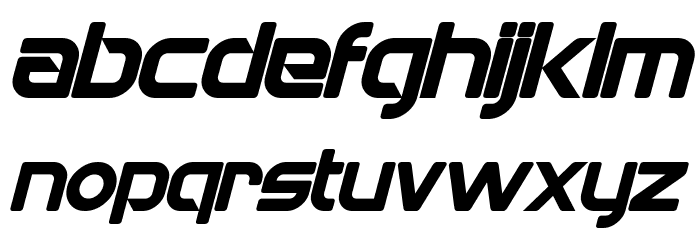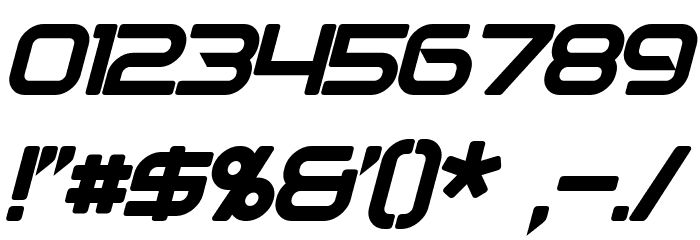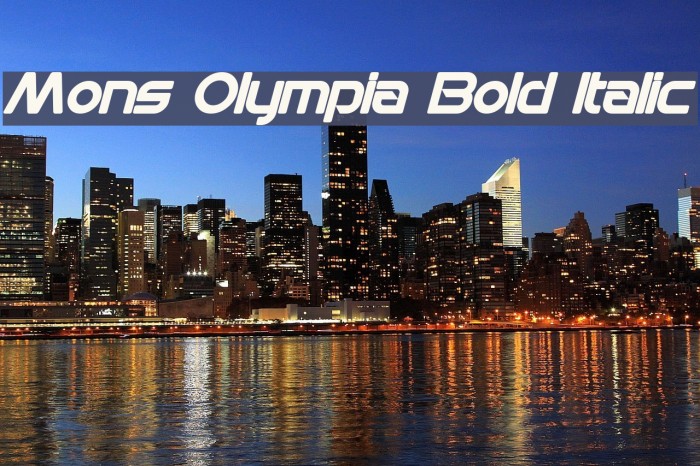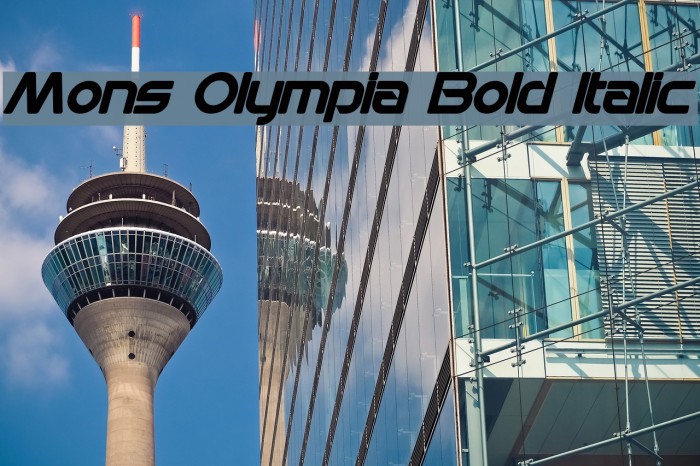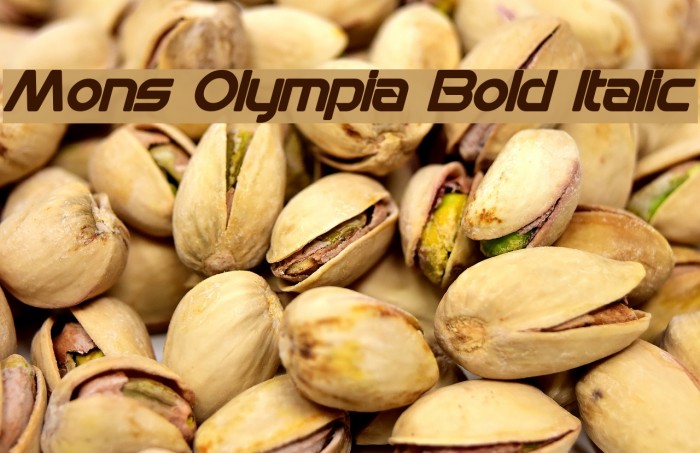
Mons Olympia Bold Italic Font
This font features a bold and italicized style with a modern, futuristic aesthetic. The characters are sleek and angular, with a forward-leaning slant that adds a sense of motion and dynamism. The uppercase letters are uniform in height, while the lowercase letters maintain a consistent baseline, creating a cohesive look. The numerals are distinct and easily readable, complementing the overall design. Special characters are stylized to match the font's unique characteristics, making it suitable for a variety of creative applications.
A bold, italicized font with a modern, futuristic design.
- Proposed Projects: Ideal for technology branding, sports team logos, sci-fi movie posters, and dynamic website headers.